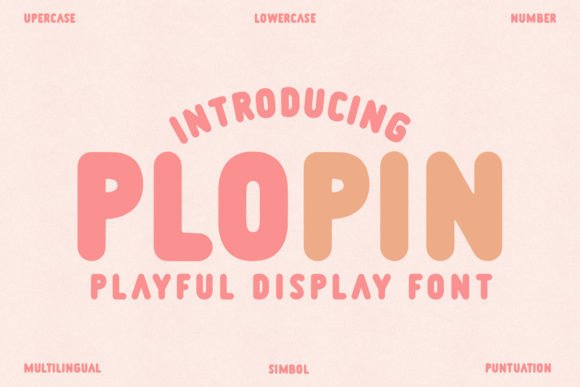
Welcome to the world of Plopin Font, the display font that exudes charm and playfulness, crafted with curves as inviting as a warm hug. This font is a true masterpiece, designed by the talented typelinestudio, with each character imbued with a unique personality that shines through. Plopin Font is more than just a font; it's an artistic expression that adds a touch of whimsy and delight to any project it graces.
Dive into the realm of creativity with Plopin Font and witness the transformation of your designs. Let your imagination soar as you create logos that burst with personality, posters that captivate and engage, clothing lines that radiate charm, and branding projects that leave a lasting impression. Plopin Font is the perfect companion for party invitations, adding a dash of fun and excitement to every celebration. With endless possibilities, this font is a versatile tool that unlocks your creative potential, inviting you to craft designs that resonate with your audience.
Picture this: a logo that dances off the screen, a poster that draws eyes like a magnet, a clothing line that exudes individuality, or a branding project that sets you apart from the crowd. Plopin Font is the secret ingredient that brings these visions to life, turning concepts into compelling realities. Its sweet and playful nature adds a touch of magic to every project, captivating your audience and leaving them yearning for more.